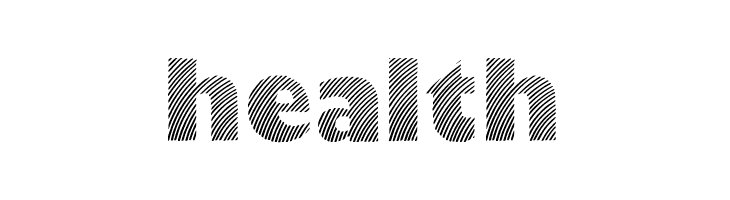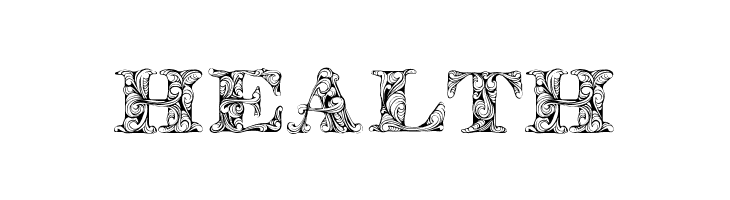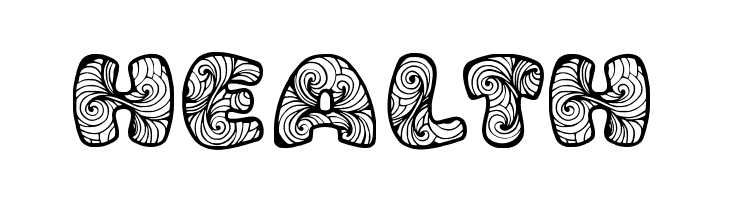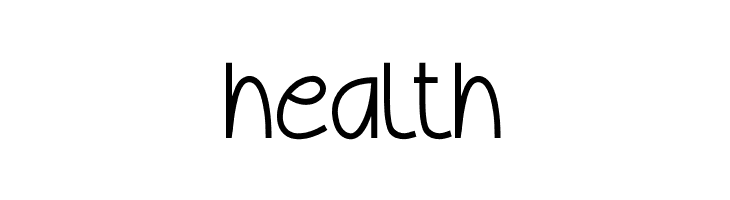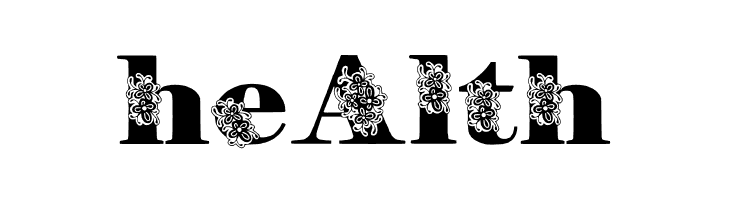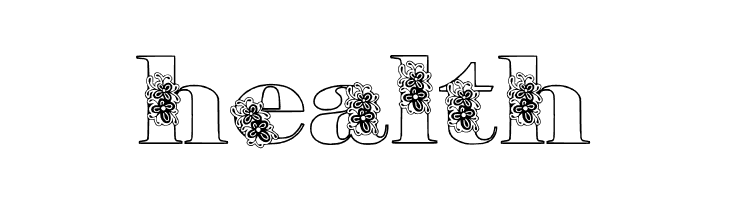
A bold, decorative font with a unique striped pattern for impactful designs.
A clean, minimalist font with thin, uniform lines and a modern, elegant appearance.
An ornate, decorative font with intricate tendril patterns.
Ornamental dingbat font with mandala motifs and bold sans-serif Latin letters.
An elegant, decorative script font with ornate swirls and heart motifs.
A whimsical, floral-decorated font with a playful and artistic style.
A bold, decorative font with a wood grain texture and hand-drawn style.
An ornate, decorative font with intricate floral patterns.
A playful, handwritten font with elongated characters and a casual style.